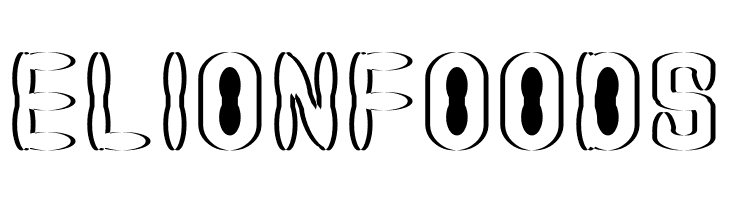
• Astakhov Access Degree ADL2
A bold, decorative font with diagonal striped patterns for a modern, edgy look.
• Astakhov Access Degree AF
A bold, playful font with organic, rounded characters.
• Astakhov Access Degree AF Serif
A bold, playful font with rounded, blob-like characters and a retro vibe.
• Astakhov Access Degree AG
A bold, playful font with high contrast and organic shapes, ideal for creative projects.
• Astakhov Access Degree AG Serif
A bold, playful font with organic, blob-like shapes and dynamic character design.
• Astakhov Access Degree AGF
A bold, playful font with organic, blob-like shapes and a fluid, dynamic style.
• Astakhov Access Degree AGFSerif
A bold, playful font with an organic, liquid-like design.
• Astakhov Access Degree AL
A bold, modern font with a unique striped pattern across each character.
• Astakhov Access Degree ALF
A modern, striped font with a digital and futuristic style.
• Astakhov Access Degree AS
A playful, hollow, bubble-like font with bold, rounded characters.